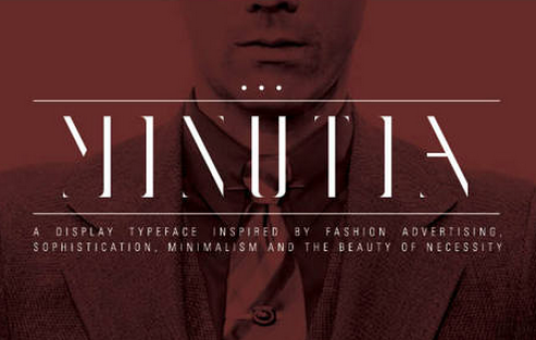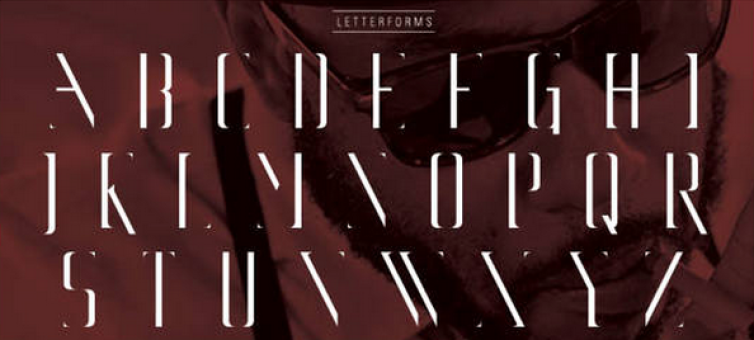
MINUTIA
MINUTIA is a display typeface with sharp, dynamic angles and serifs, sophistication, class and elegance. The face emphasizes the beauty of necessity through minimalism. It was highly inspired by fashion advertising, modern lifestyles and interactions of light/shadow.
Designer: Sam J Small
Publisher: Sam J Small